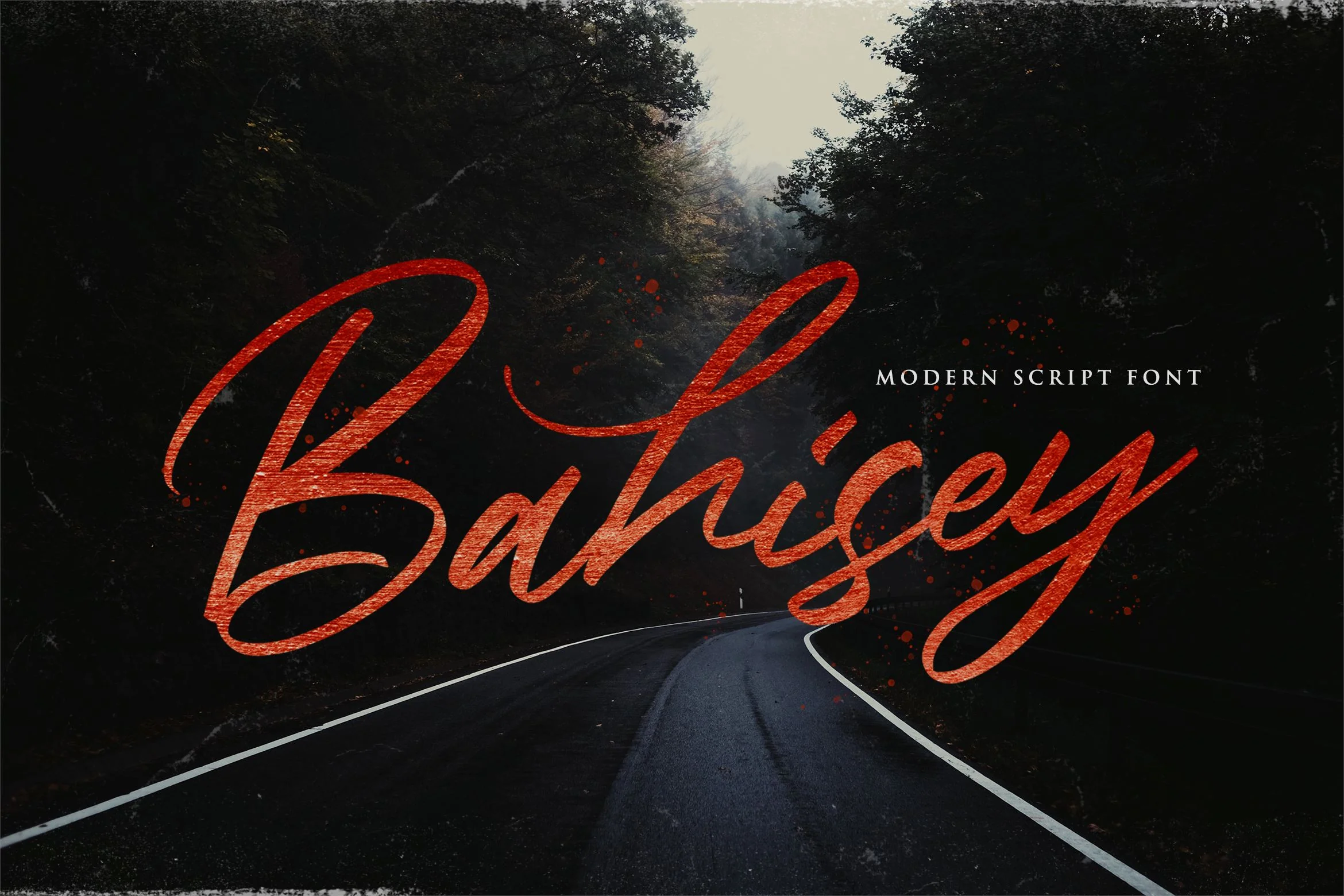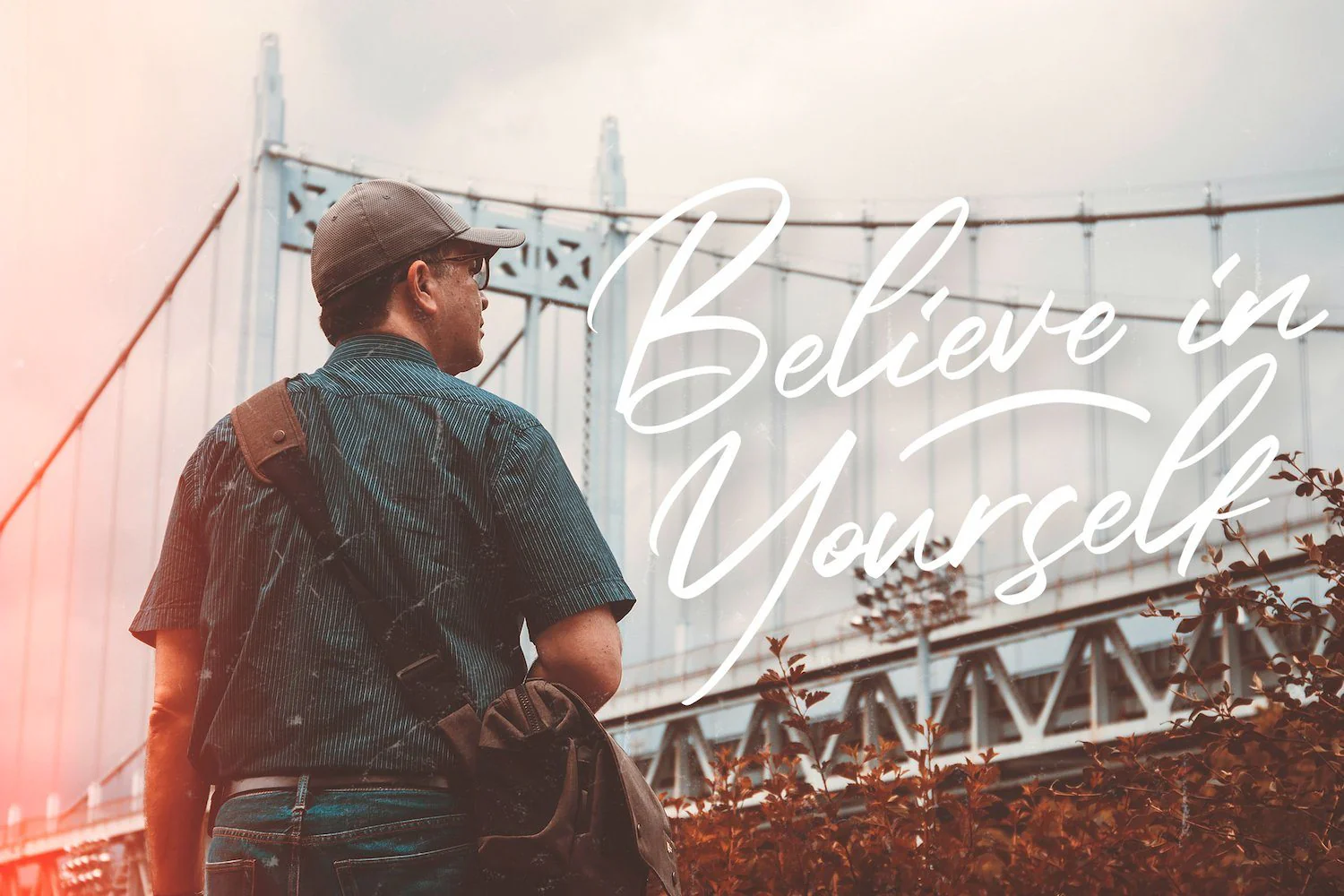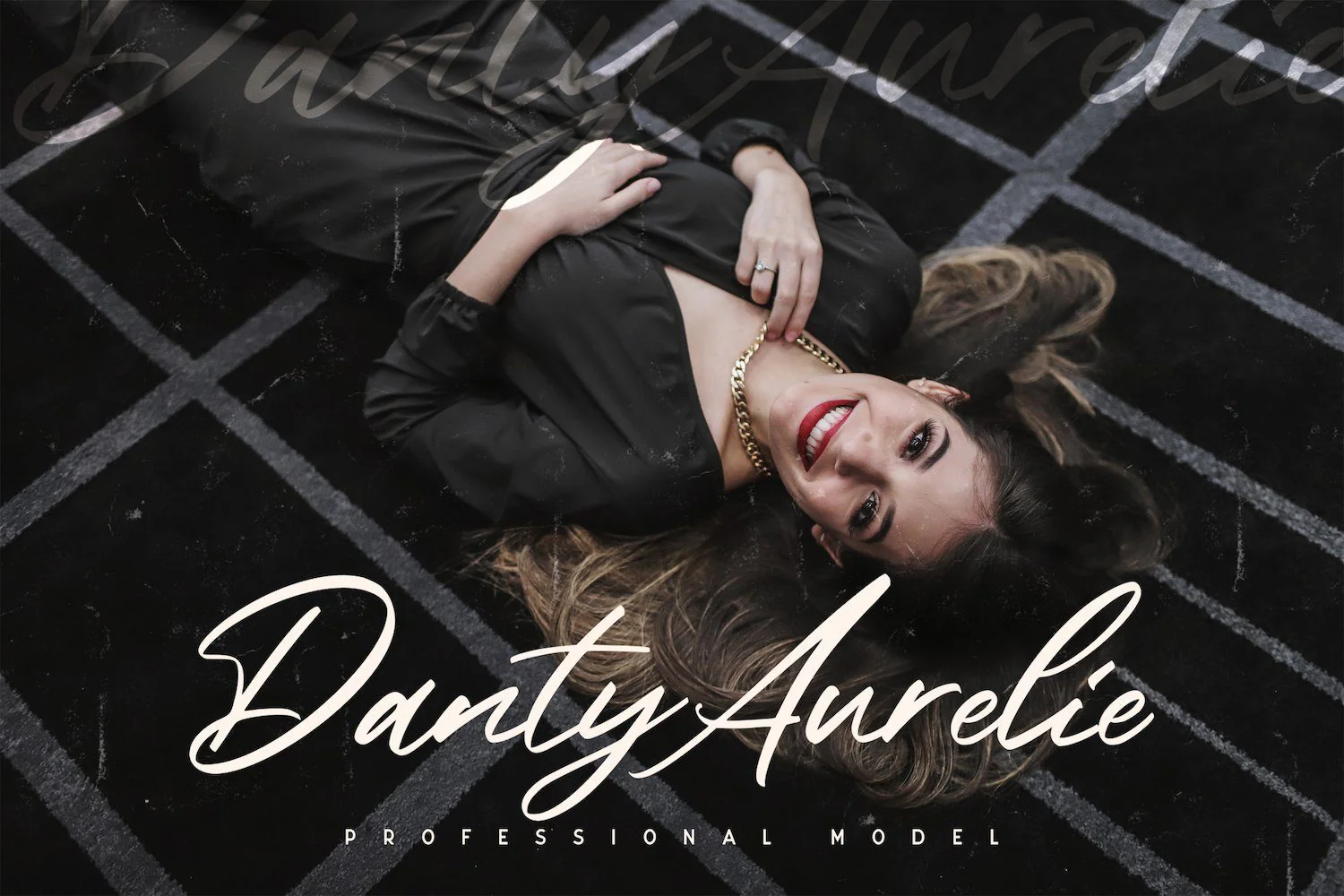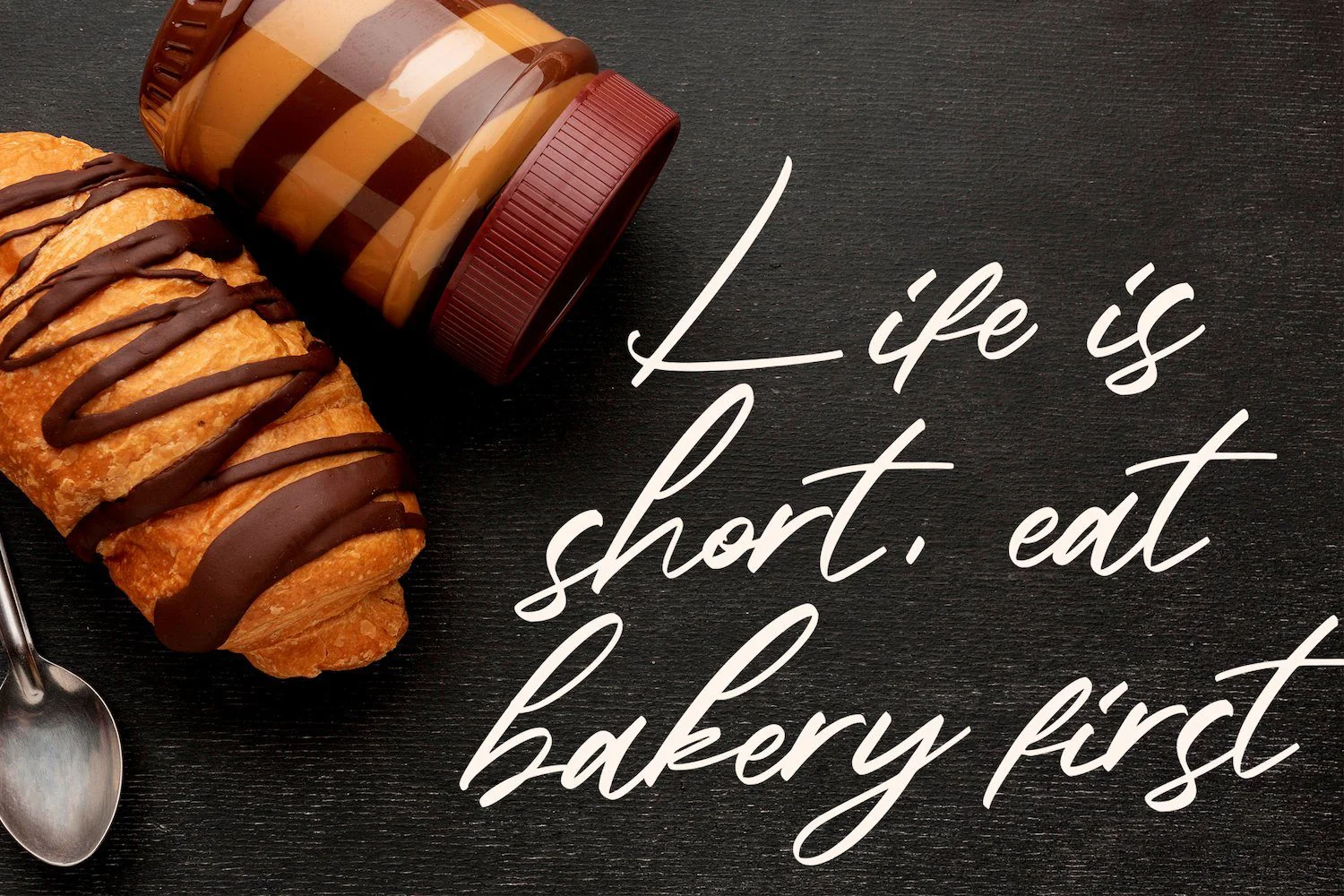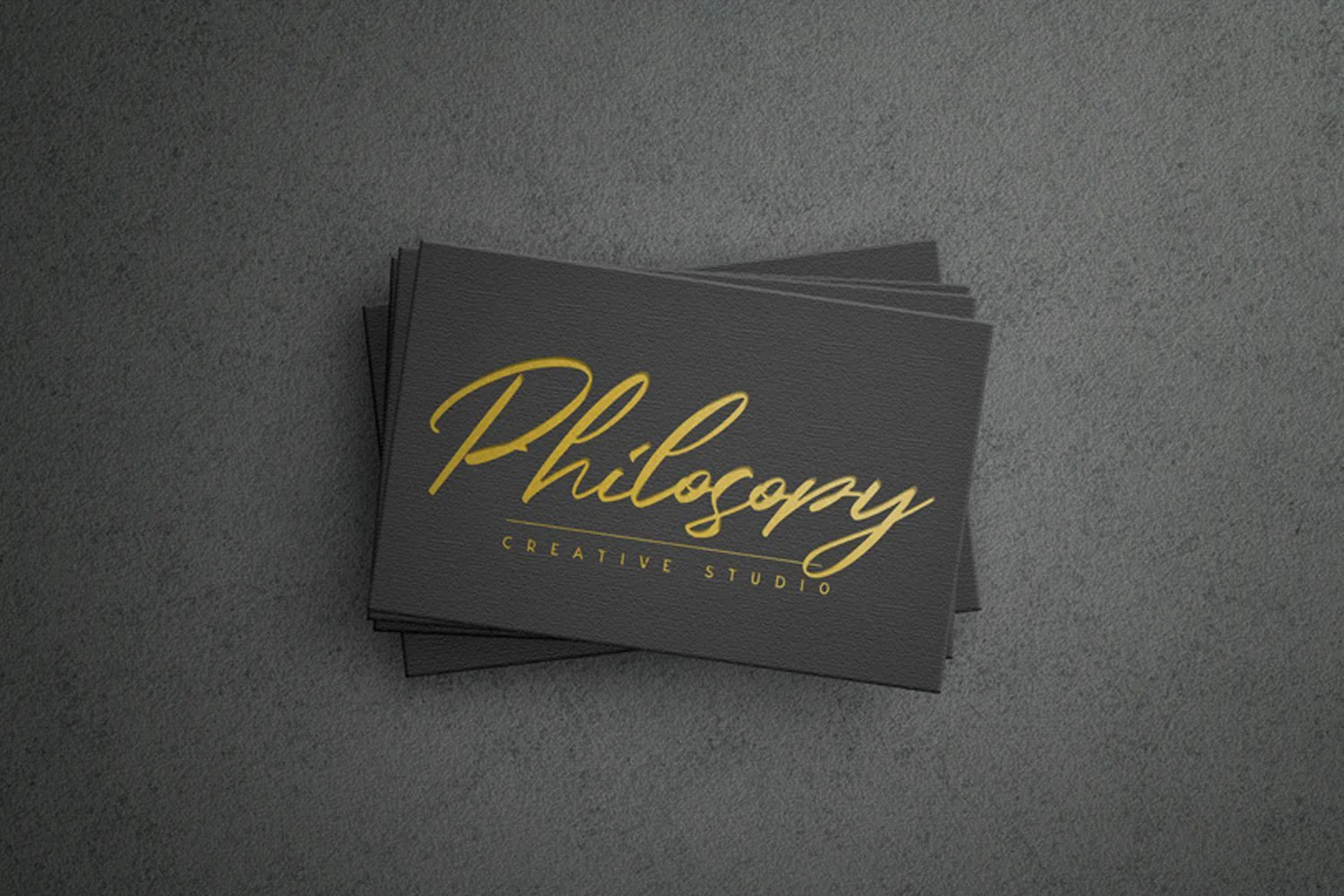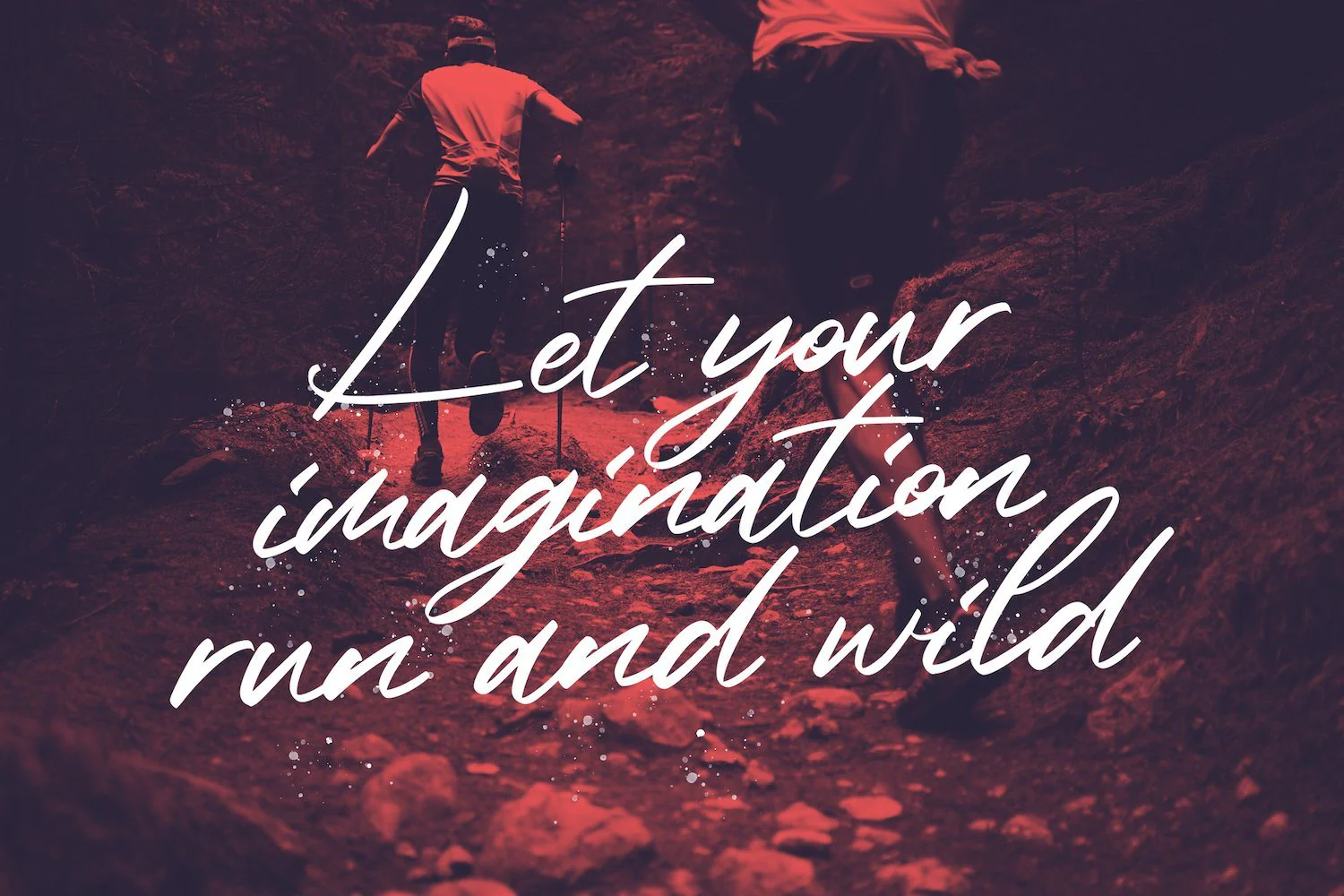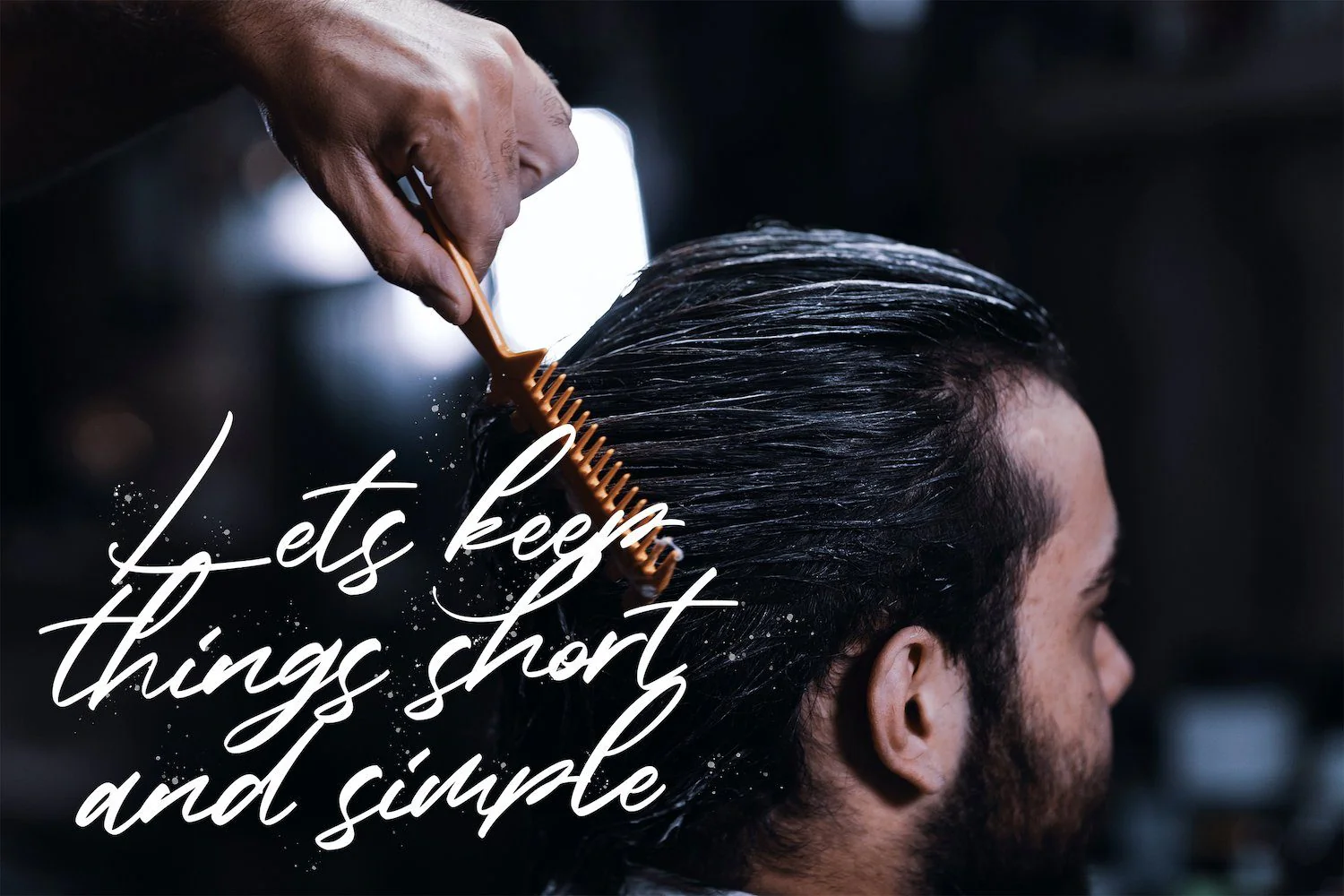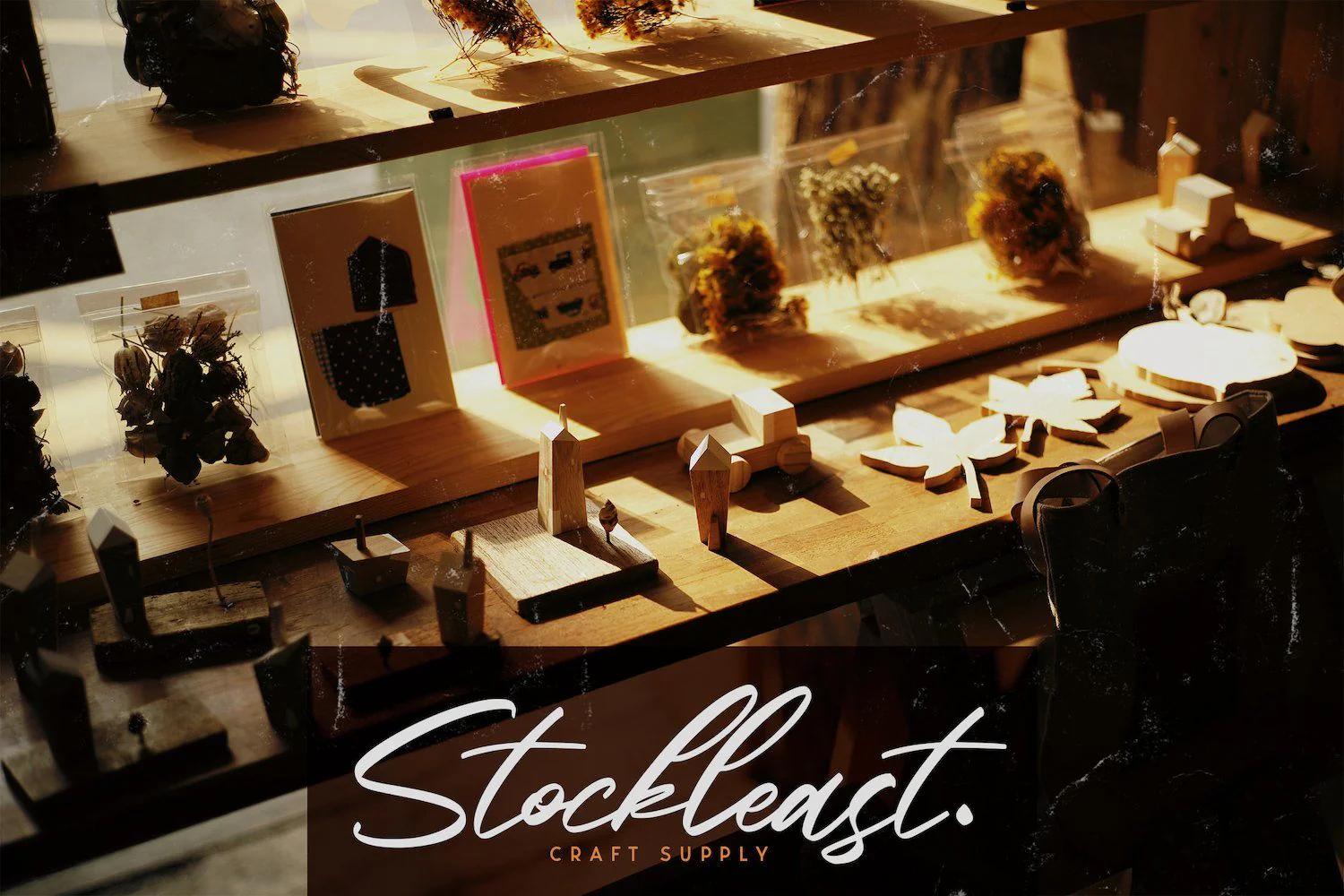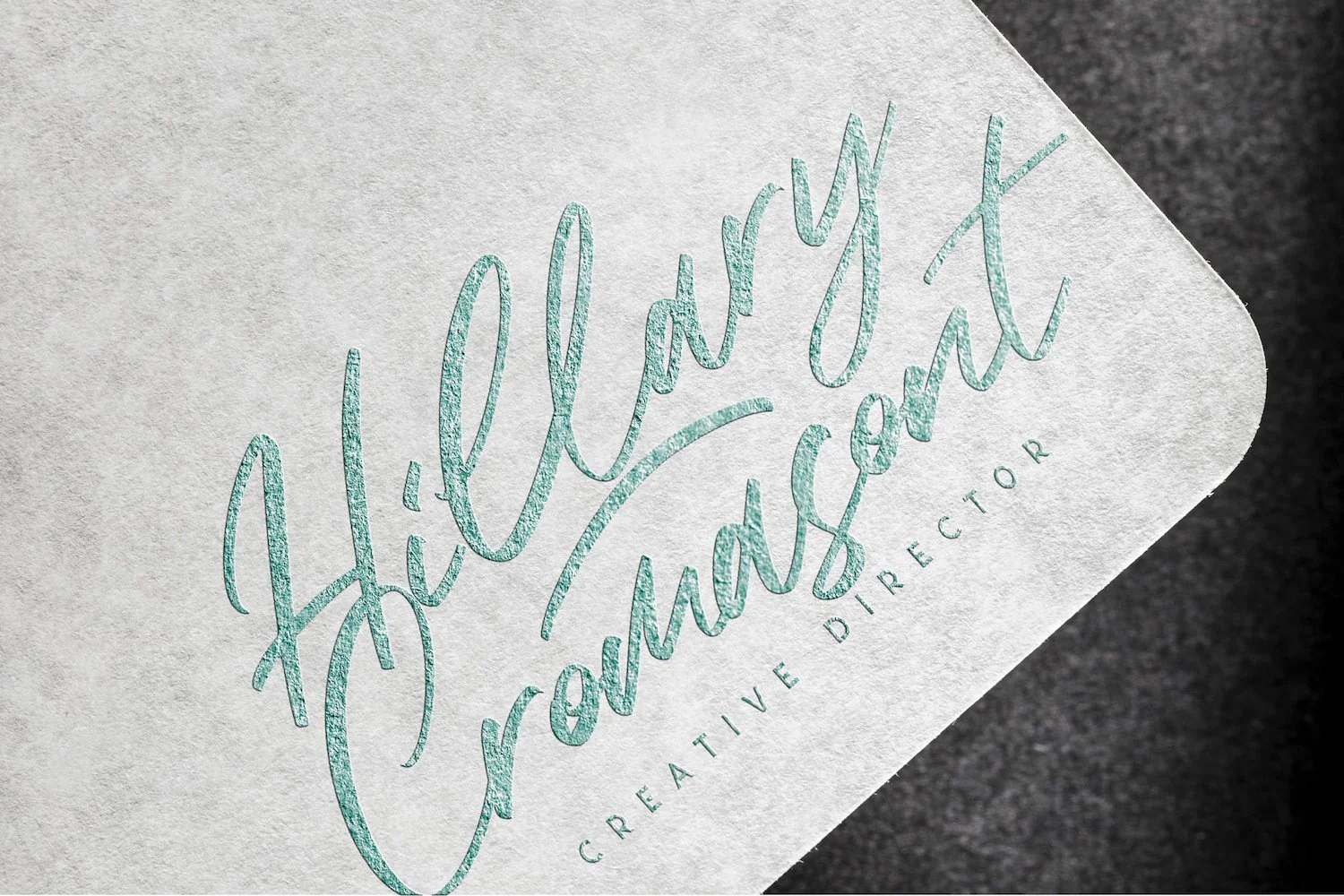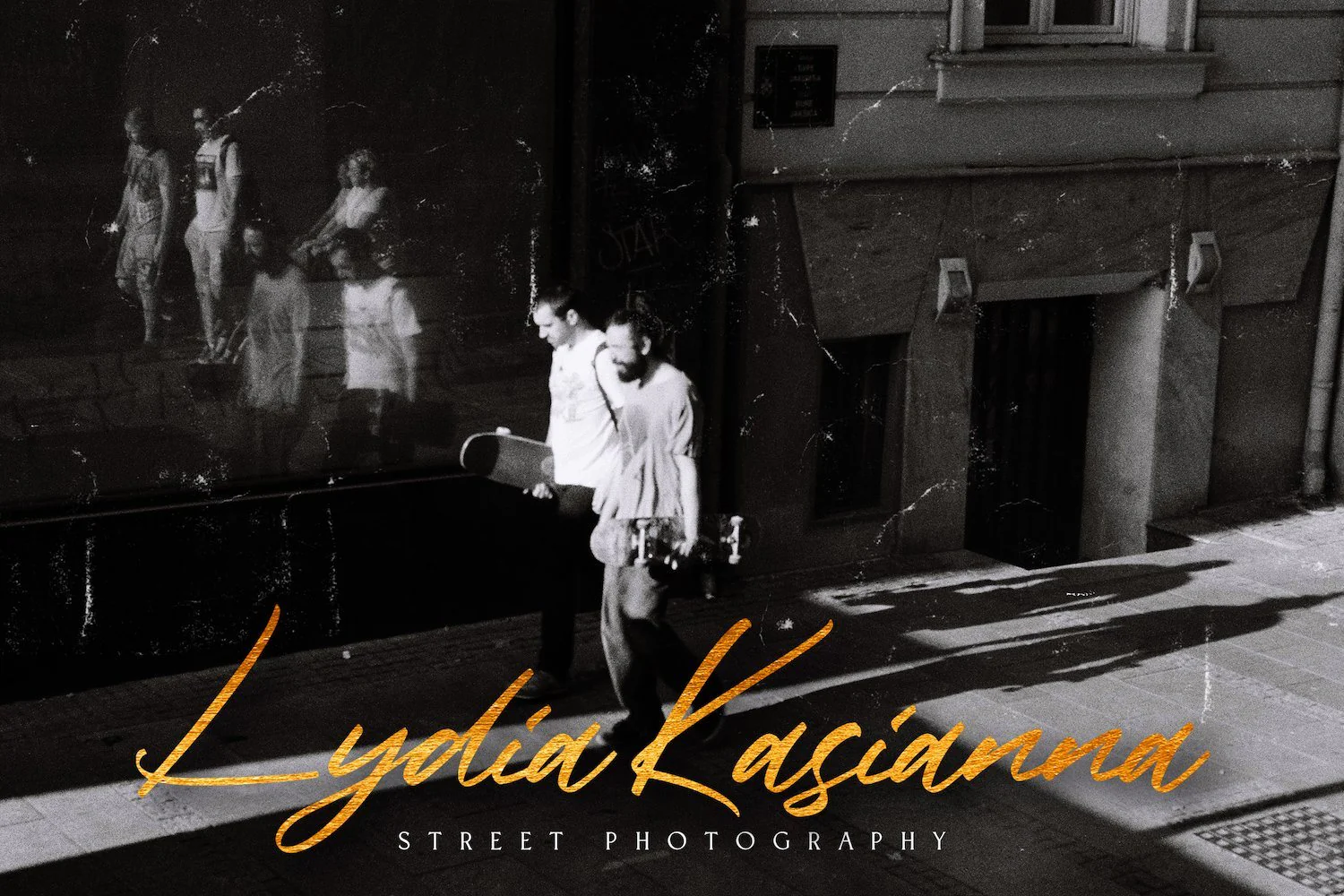
Bahisey - Modern Script Font
Introducing Bahisey - Modern Script Font
Bahisey is a modern script font. It will elevate a wide range of design projects to the highest level, be it branding, headings, wedding designs, invitations, signatures, logos, labels, and much more!
Fall in love with its incredibly versatile style and use it to create spectacular designs!
Introducing Bahisey - Modern Script Font
Bahisey is a modern script font. It will elevate a wide range of design projects to the highest level, be it branding, headings, wedding designs, invitations, signatures, logos, labels, and much more!
Fall in love with its incredibly versatile style and use it to create spectacular designs!